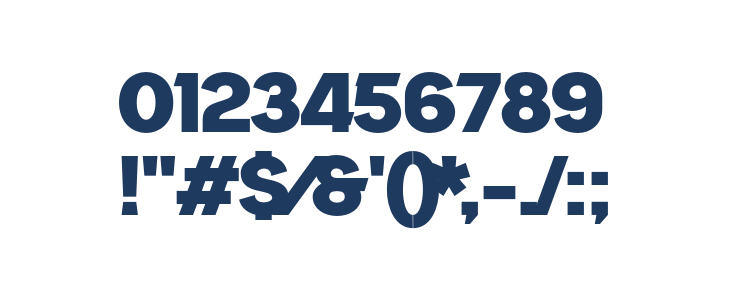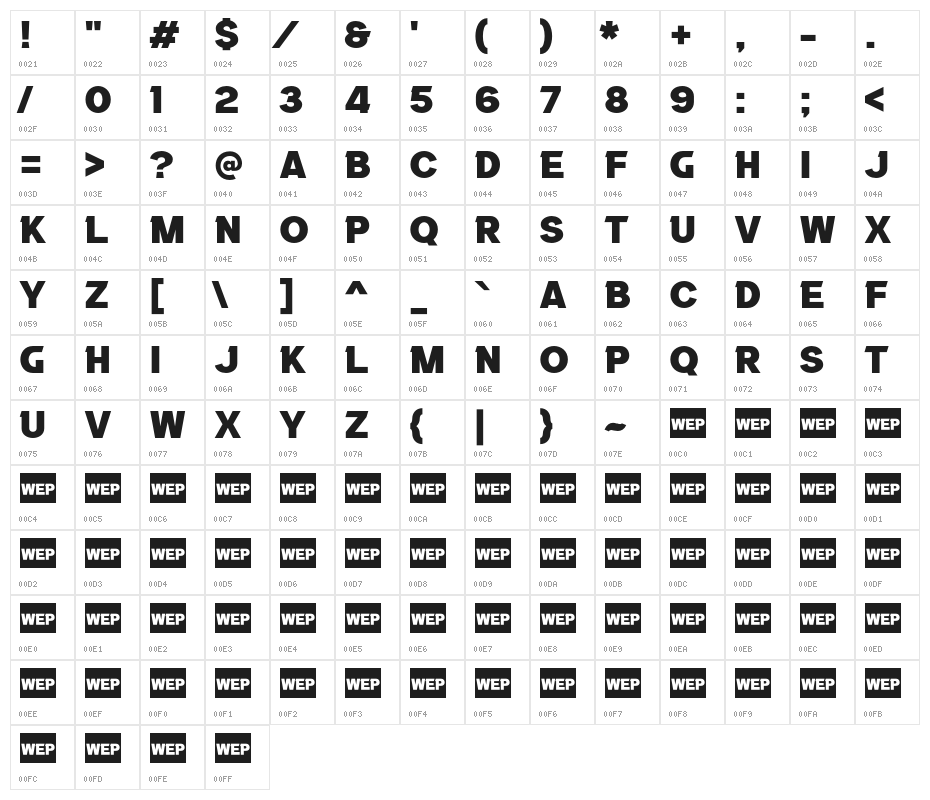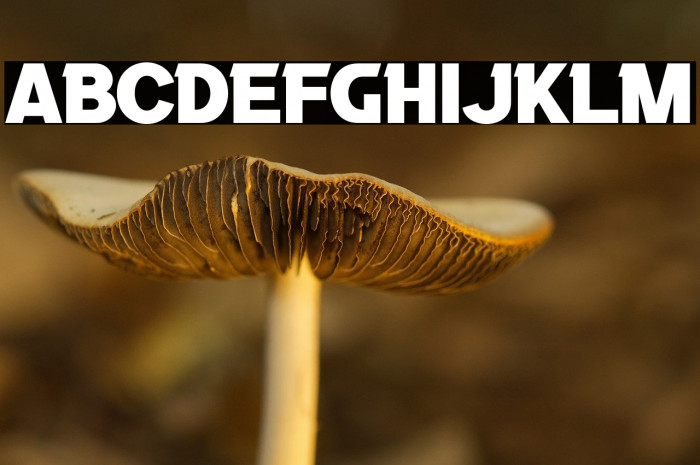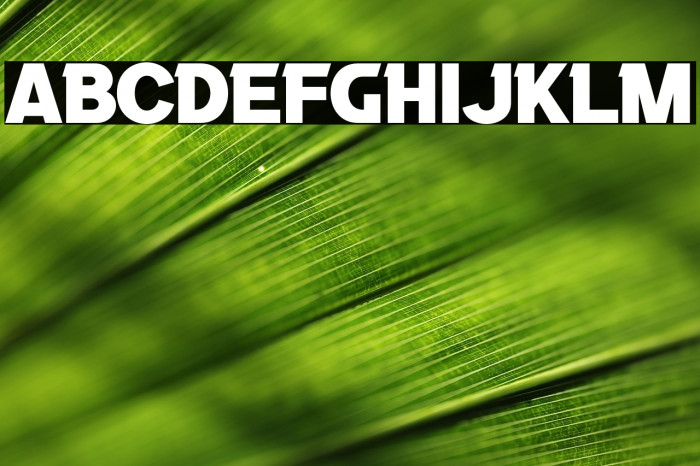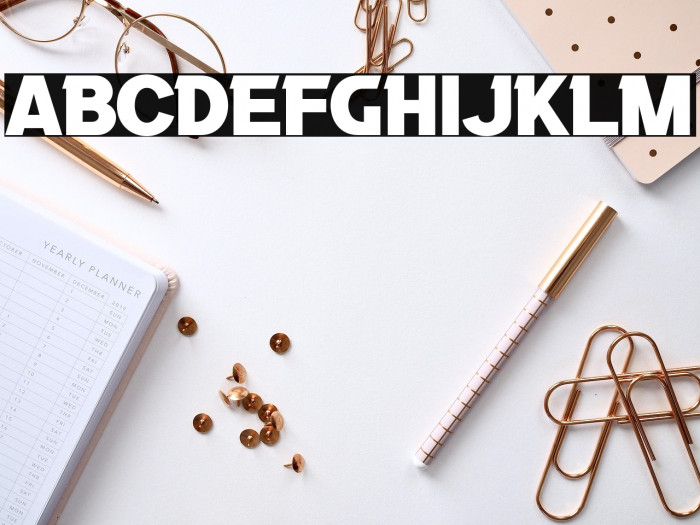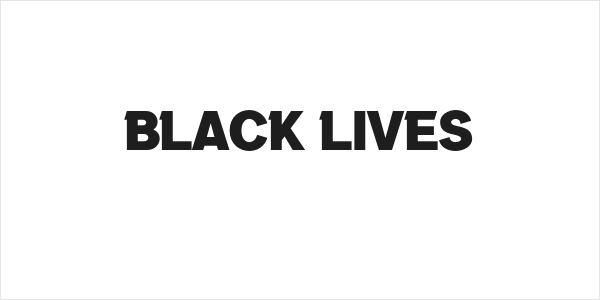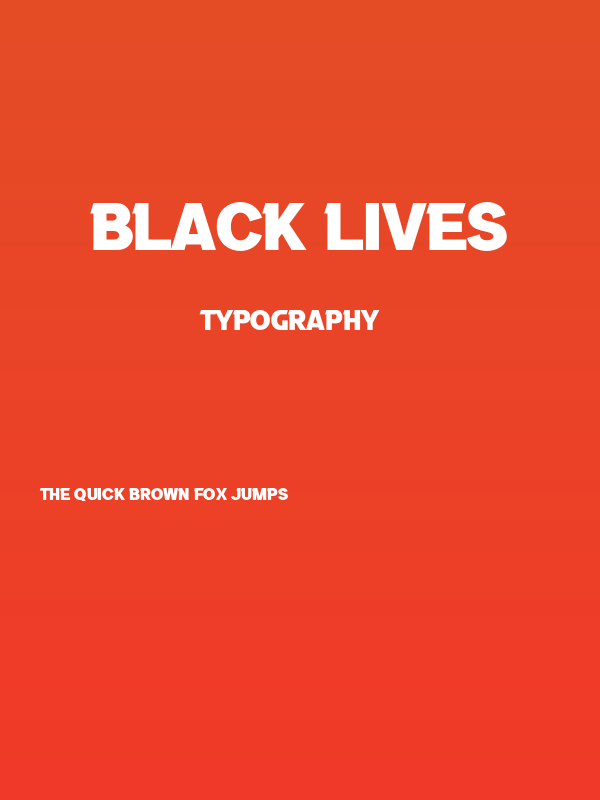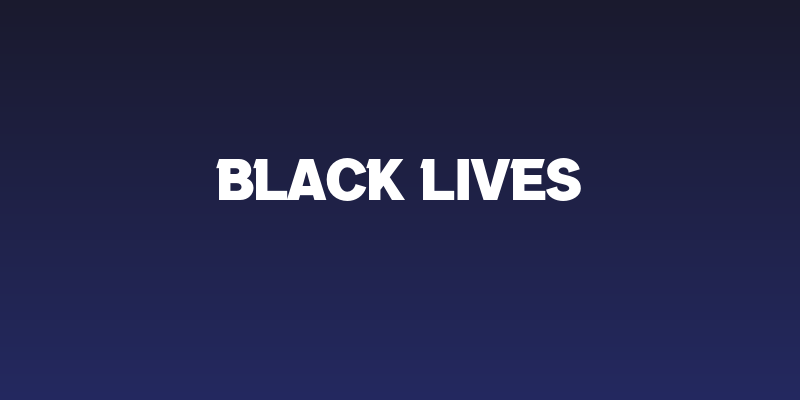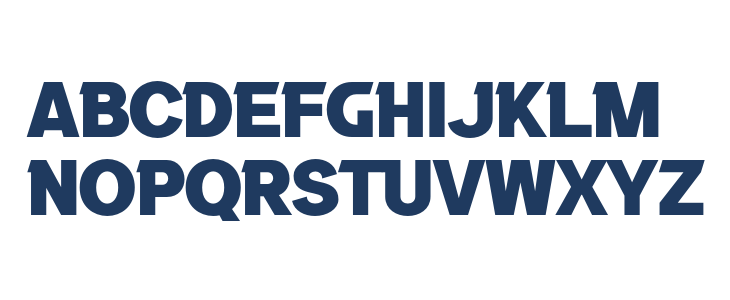
Black Lives Font
Black Lives Description
This font is a bold, sans-serif typeface characterized by its strong, impactful presence. The letters are uniformly thick, with a consistent stroke width that gives it a robust and solid appearance. The uppercase and lowercase letters maintain a geometric structure, with clean lines and sharp angles. The numbers and special characters follow the same bold style, ensuring a cohesive look across all glyphs. This font is designed to capture attention and convey messages with authority and clarity.
| Proposed Projects | Ideal for headlines, posters, branding, and any project requiring a bold statement. |